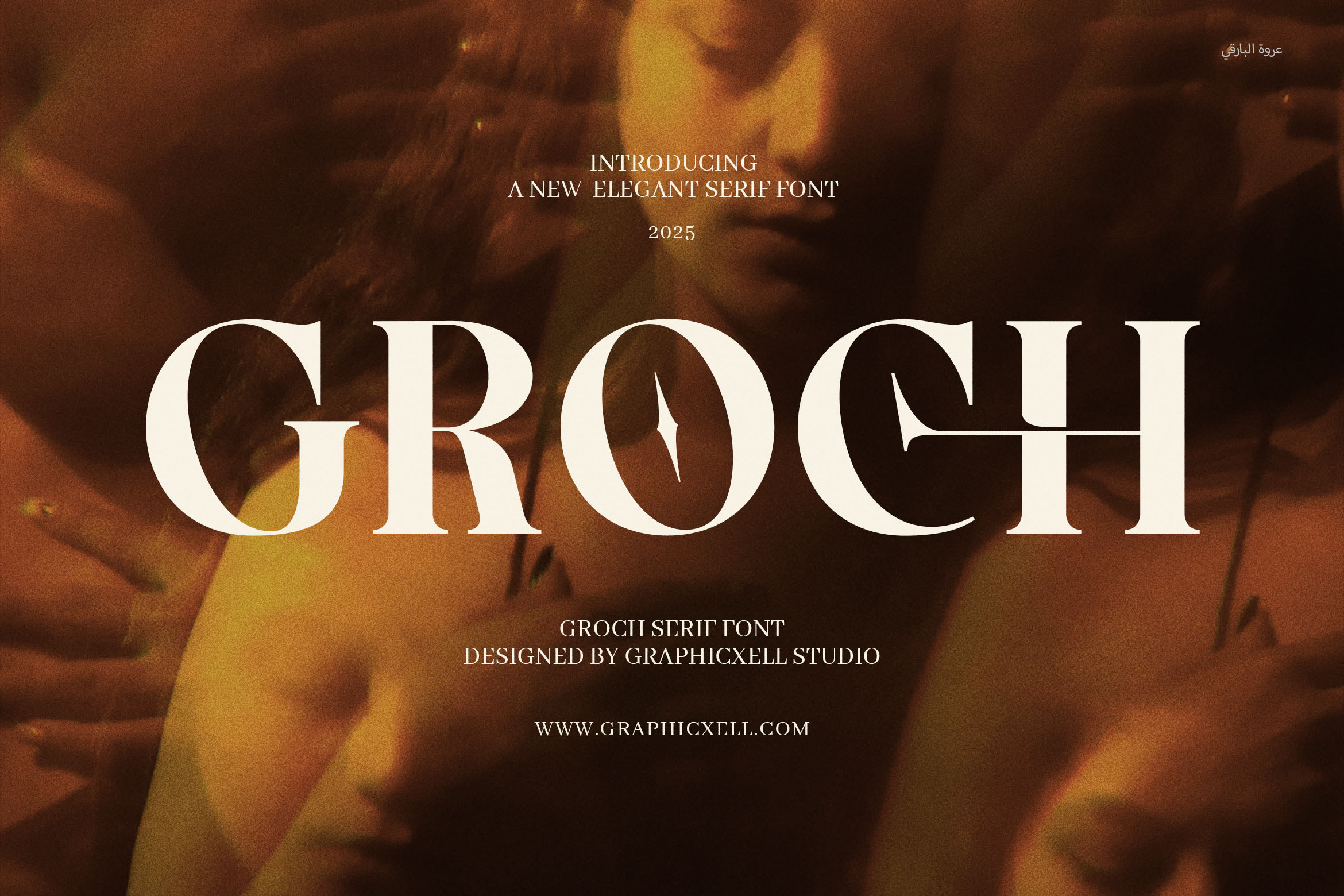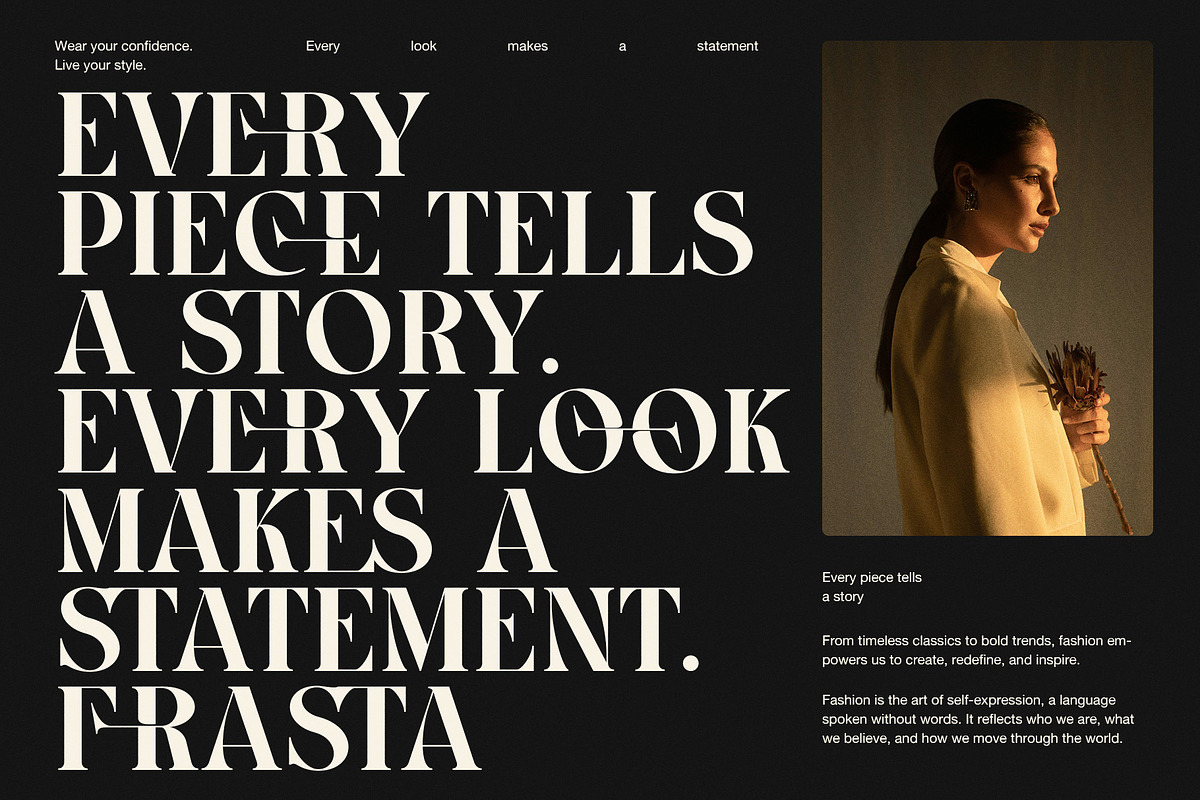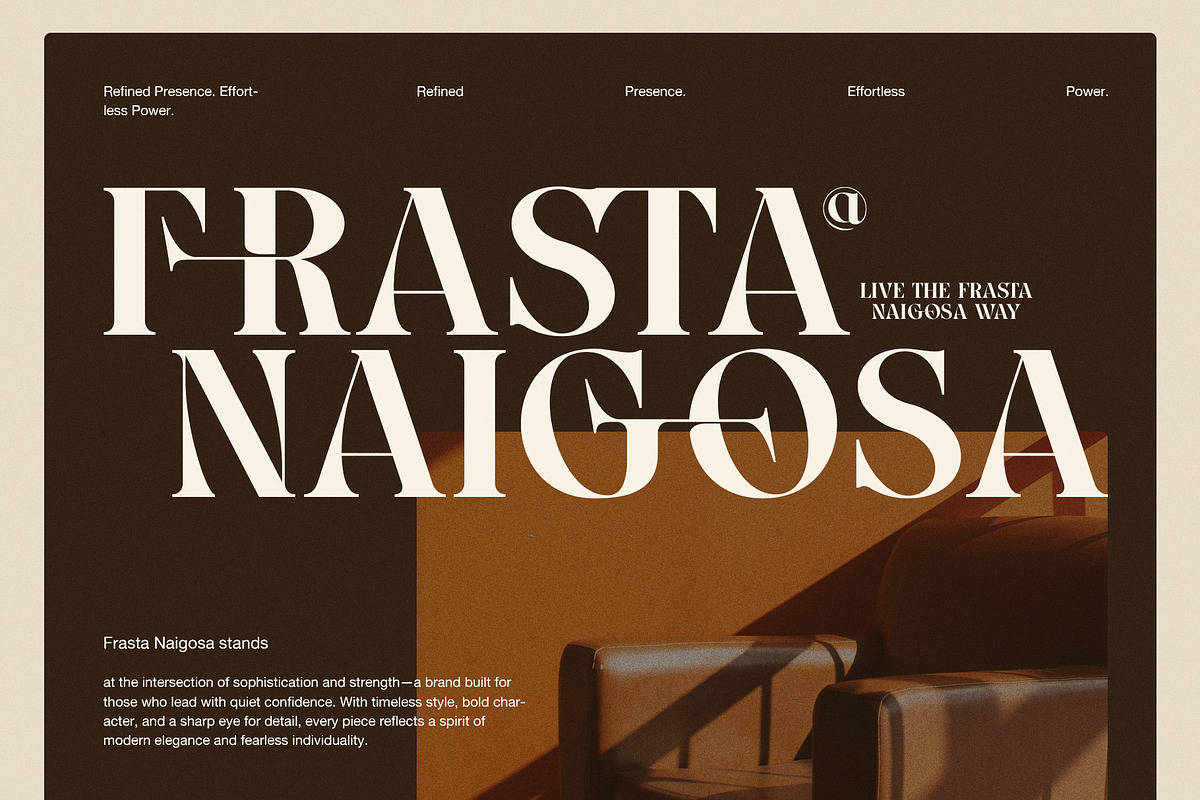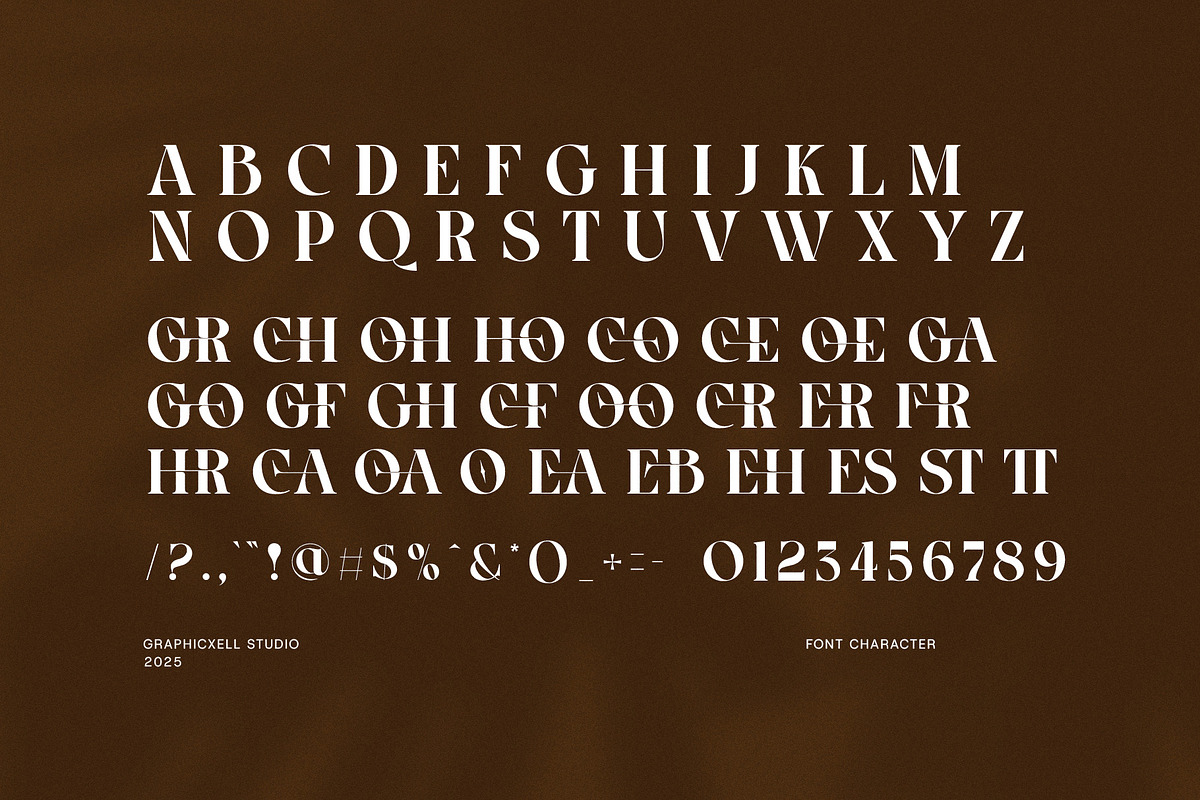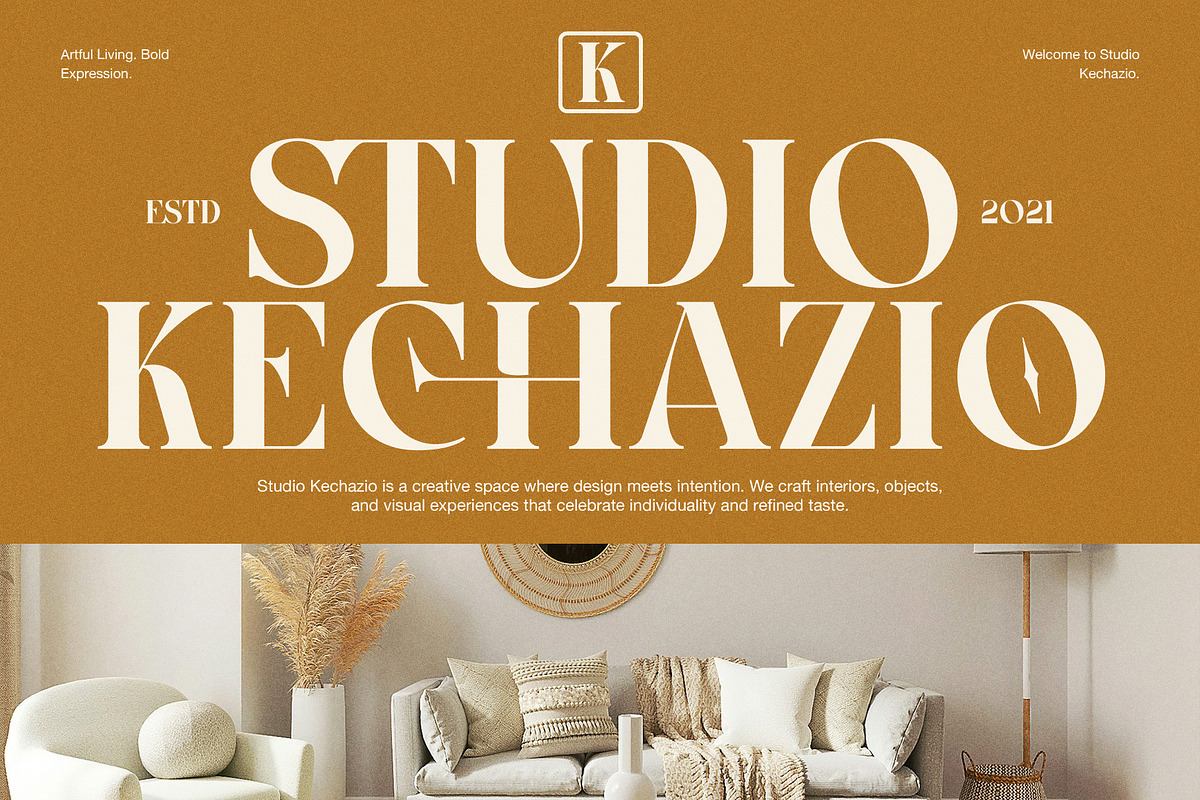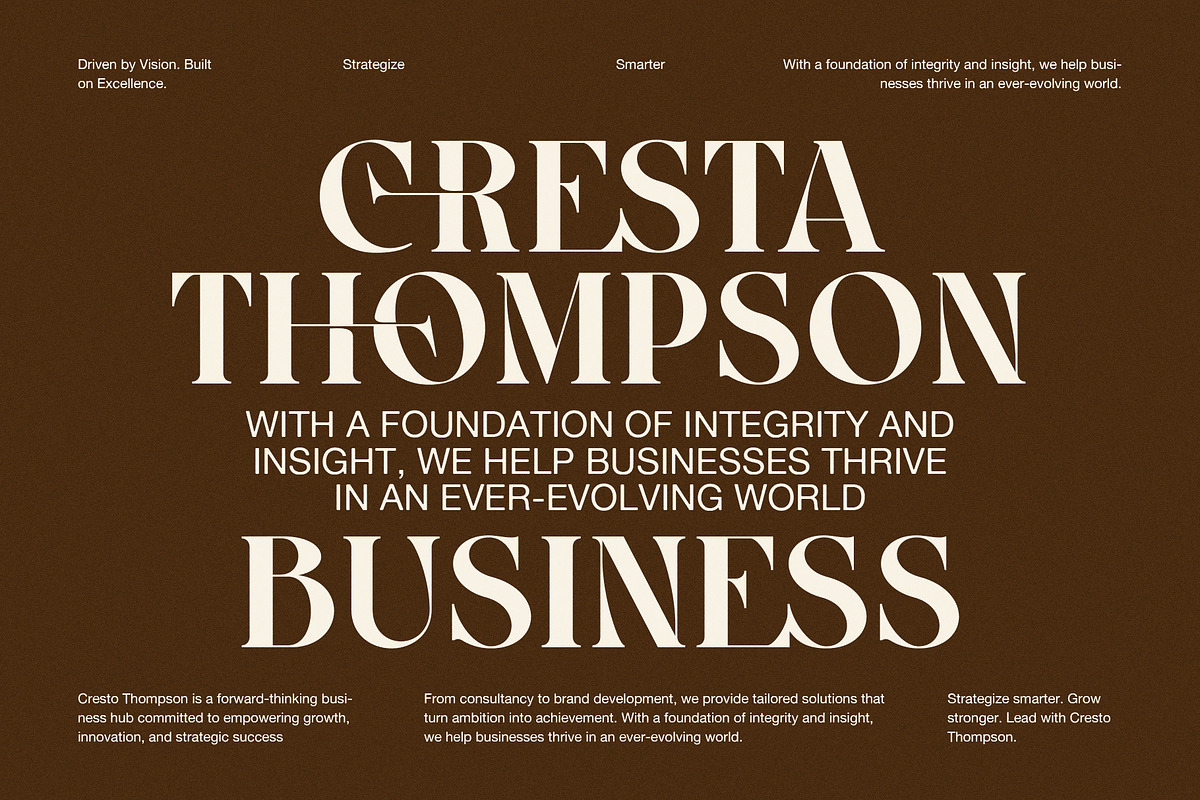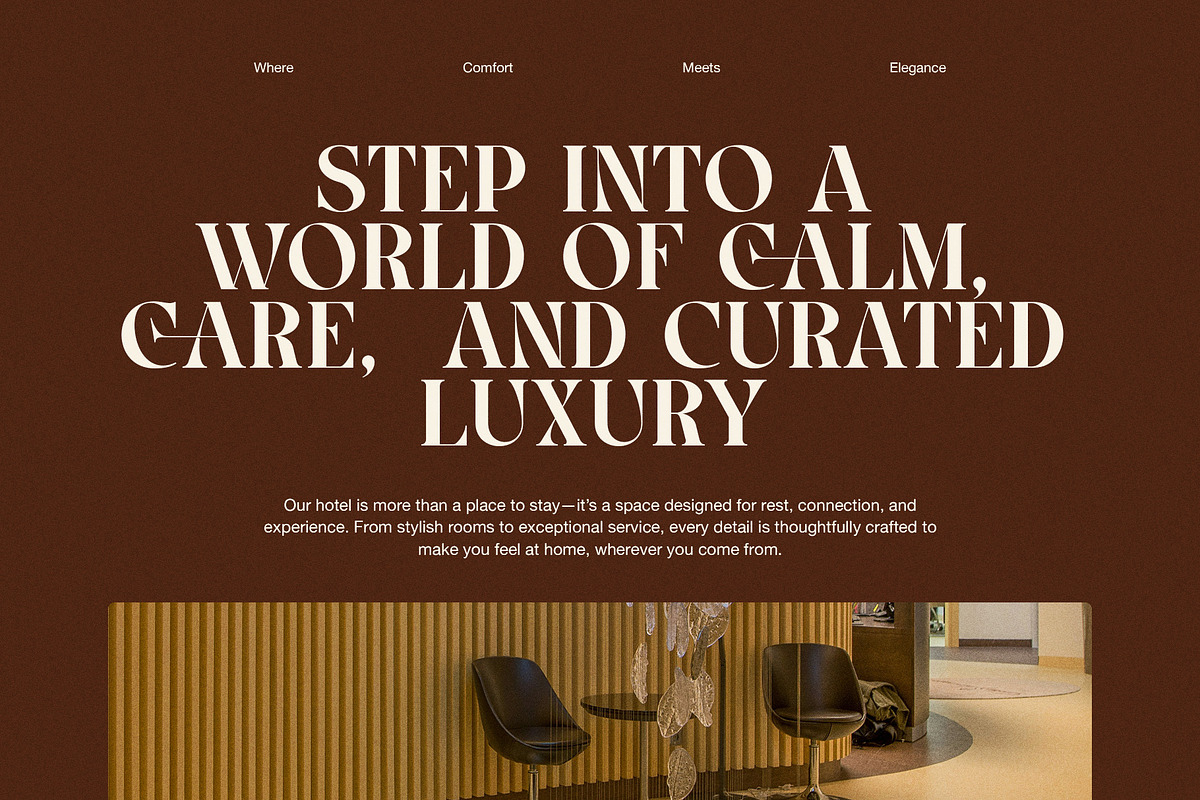
Groch Elegant Serif Font
Groch Elegant Serif Font is a bold blend of classic refinement and modern flair, designed to bring an elevated, artistic touch to your typography. With graceful serifs, distinctive ligatures, and beautifully crafted alternates, Groch offers a high-end aesthetic that feels both timeless and fresh. Every letterform has been designed with sophistication in mind, making this font ideal for premium branding, editorial design, and stylish packaging.
Perfect for fashion-forward logos, boutique brand identities, luxury product labels, and high-end website headers, Groch stands out with its elegant curves and expressive character. It effortlessly balances structure and style, providing a visual harmony that enhances any creative project. Whether you're designing for magazines, lookbooks, or social media campaigns, Groch delivers a professional yet artistic feel that commands attention.
This modern serif font thrives in both minimal layouts and richly layered compositions. Its unique ligatures and alternates invite experimentation and personality, allowing you to craft text that feels distinctive and dynamic. From gourmet food packaging to curated lifestyle branding, Groch adapts with confidence and grace.
Groch isn’t just another elegant serif—it’s a design statement. It evokes emotion, elevates content, and brings a refined edge to contemporary typography. If you're looking for a font that combines luxury, clarity, and creativity, Groch Elegant Serif is your perfect design companion.